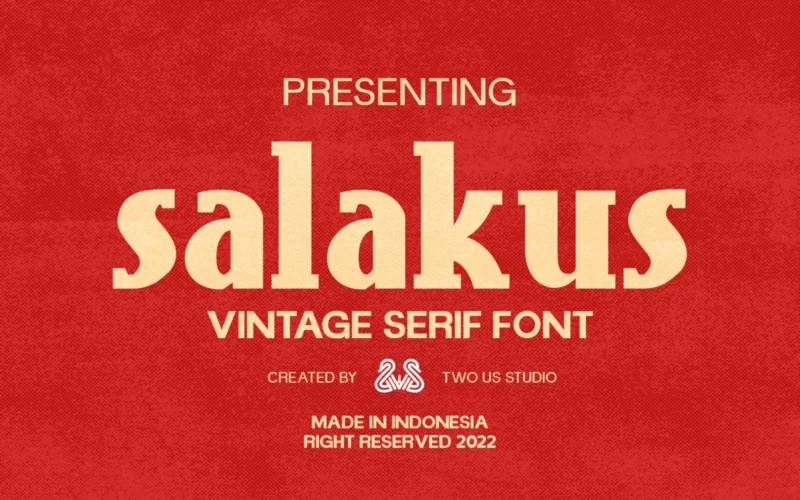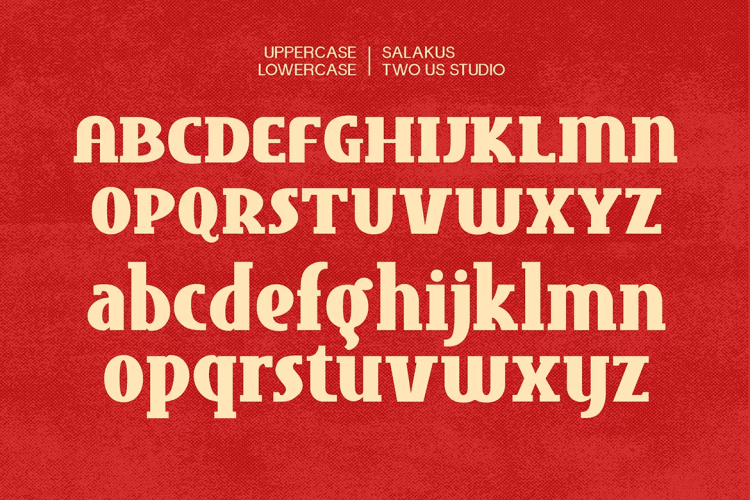
Salakus Vintage Font
Salakus – Vintage Serif Typeface Unique Typeface Font Salakus for your personal or business purpose come with 4 different style, (Thin,Regular,Bold,Black) what includes…
Salakus – Vintage Serif Typeface
Unique Typeface Font Salakus for your personal or business purpose come with 4 different style, (Thin,Regular,Bold,Black)
Where Salakus Vintage Font works best
Salakus Vintage Font gives long-form text a classic, trustworthy rhythm — ideal for magazine spreads, annual reports and book interiors.
Pair Salakus Vintage Font with generous letter-spacing for wordmarks in fashion, hospitality, wine and jewellery branding.
Use Salakus Vintage Font for slide titles in Keynote, PowerPoint or Google Slides to add authority without looking dated.
What is Salakus Vintage Font good for?